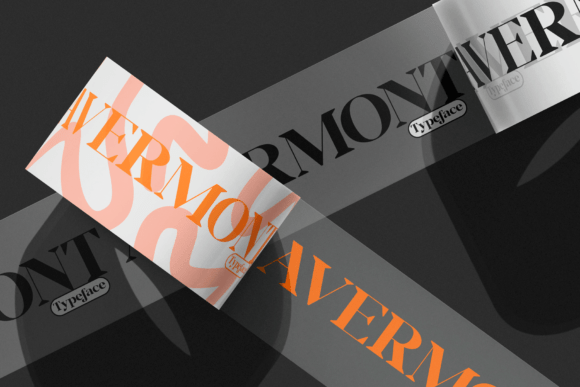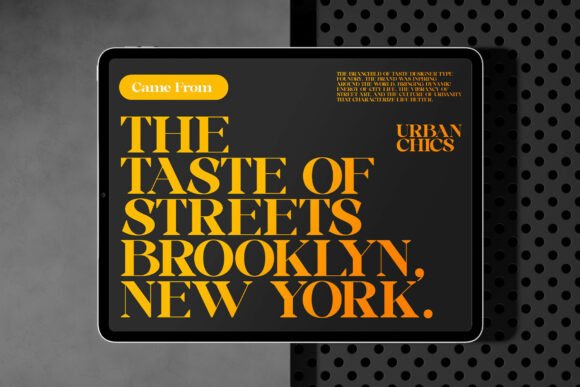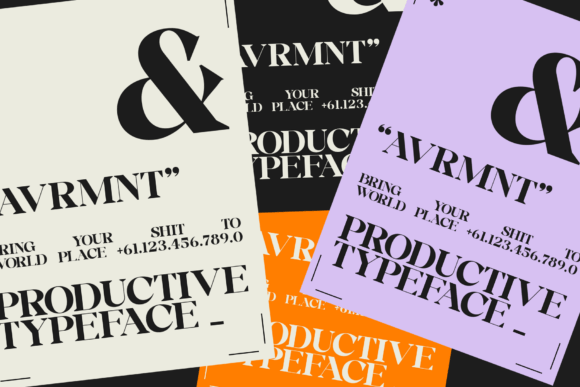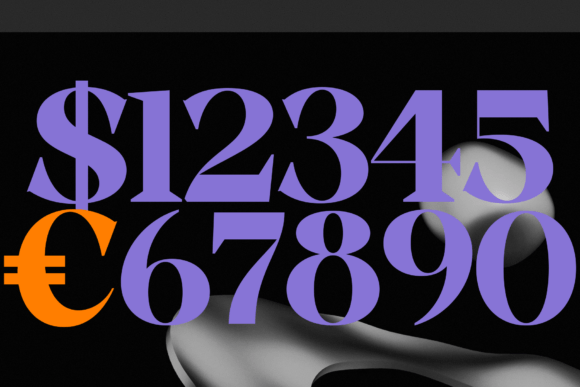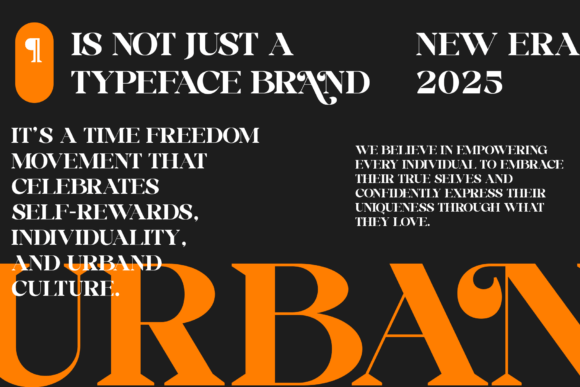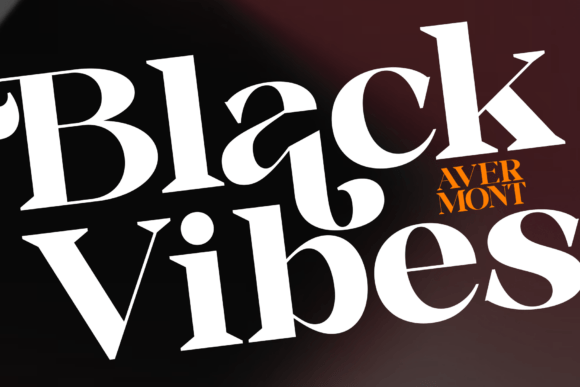
Avermont Font: Elevate Your Designs with Classic Elegance and Modern Sophistication
In the world of typography, fonts play a crucial role in conveying the message and aesthetic of a design. For designers and crafters seeking to infuse their projects with an air of elegance and professionalism, Avermont font emerges as an exceptional choice. Avermont is a serif font that masterfully blends classic elegance with a modern touch, making it versatile for a wide range of design needs.
The Essence of Avermont Font
Avermont’s design is rooted in the principles of classic serif fonts, yet it incorporates subtle modern elements that set it apart. This font is characterized by its harmonious proportions, meticulously crafted to ensure that each letter complements the others, creating a cohesive and aesthetically pleasing text. The serifs are carefully designed to add a touch of sophistication without overpowering the overall design, making Avermont suitable for projects that demand an elegant and refined look.
Readability and Aesthetics: A Balanced Approach
One of the standout features of Avermont font is its exceptional readability. In an era where digital media dominates, the ability of a font to perform well across various platforms and sizes is paramount. Avermont excels in this regard, offering clear and legible text without sacrificing its aesthetic appeal. This balance is crucial for designers who need to ensure that their message is conveyed effectively, whether in print or digital formats.
Suitability for Various Design Needs
Avermont’s versatility makes it an excellent choice for a multitude of design projects. Here are a few areas where Avermont font truly shines:
- Branding and Corporate Design: For companies looking to establish a professional and trustworthy image, Avermont provides the perfect typographic solution. Its elegant and modern feel can elevate a brand’s visual identity, making it more appealing to its target audience.
- Print and Digital Media: Whether it’s for editorial design, advertising, or digital content, Avermont’s readability and aesthetic appeal make it an excellent choice. It can be used for headings, body text, or any other typographic need, ensuring consistency and quality across different mediums.
- Packaging and Product Design: For product packaging, Avermont can add a touch of sophistication and luxury, enhancing the perceived value of the product. Its versatility allows it to be scaled and adapted to fit various design requirements.
- Web and Mobile Interfaces: In the digital realm, Avermont’s performance across different devices and screen sizes makes it an ideal choice for web and mobile interface design. It ensures a seamless user experience, combining functionality with visual appeal.
Why Choose Avermont Font?
Choosing Avermont font for your design projects comes with several advantages:
- Elegance and Modernity: Avermont offers a unique blend of classic elegance and modern sophistication, making it stand out in the world of typography.
- Versatility: Its adaptability to various design needs and mediums makes Avermont a practical choice for designers.
- Readability: The font’s design prioritizes readability, ensuring that your message is communicated effectively.
- Professionalism: Avermont can elevate your designs, adding a professional touch that is hard to achieve with more generic fonts.
Avermont font represents a harmonious marriage of classic elegance and modern design principles, making it an invaluable asset for designers and crafters. Its versatility, readability, and aesthetic appeal position it as a go-to choice for a wide range of projects, from branding and corporate design to digital and print media. By choosing Avermont, designers can ensure that their work not only looks professional but also resonates with their audience on a visual level. Whether you’re aiming to create a sophisticated brand identity, design compelling editorial content, or craft beautiful product packaging, Avermont font is an excellent choice that can elevate your designs to new heights.